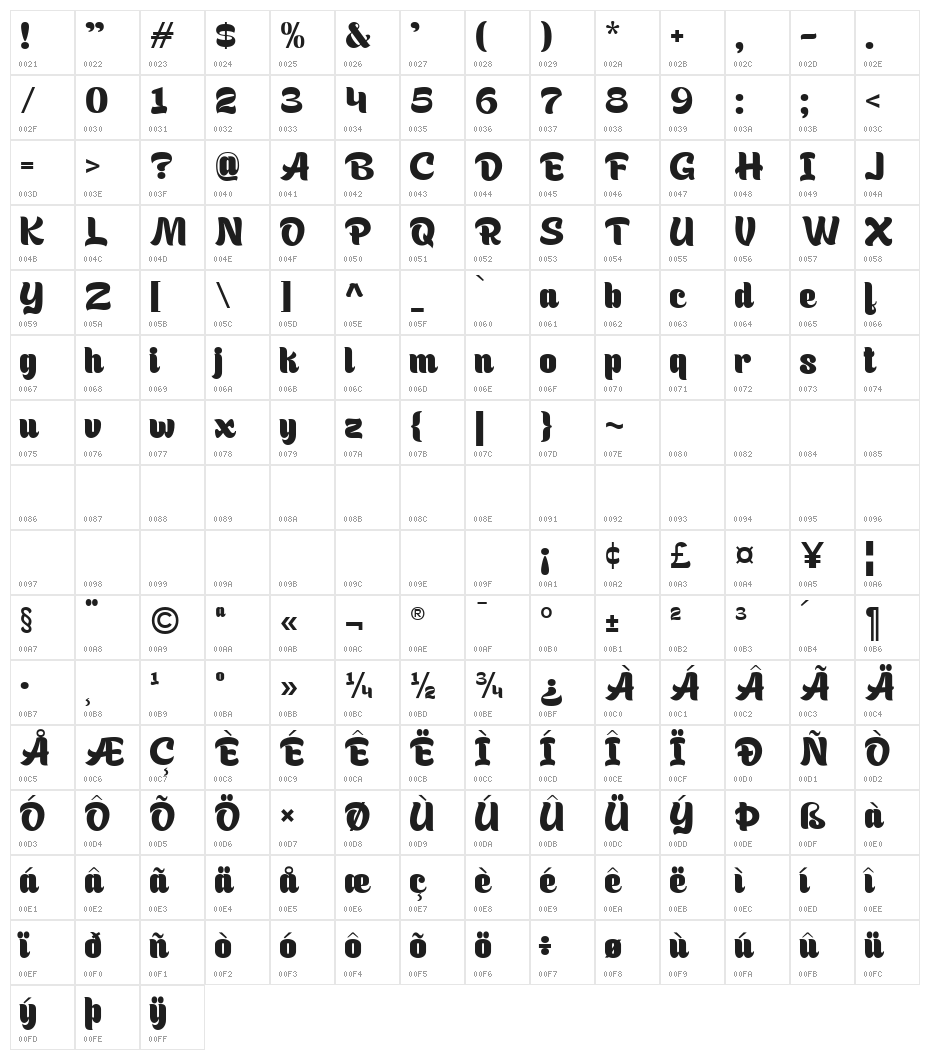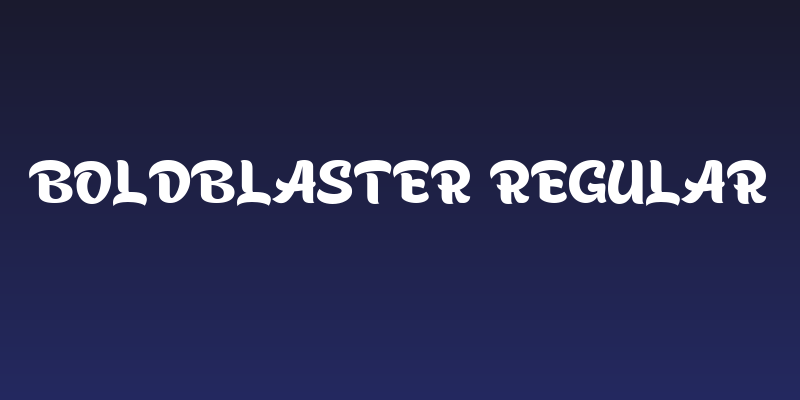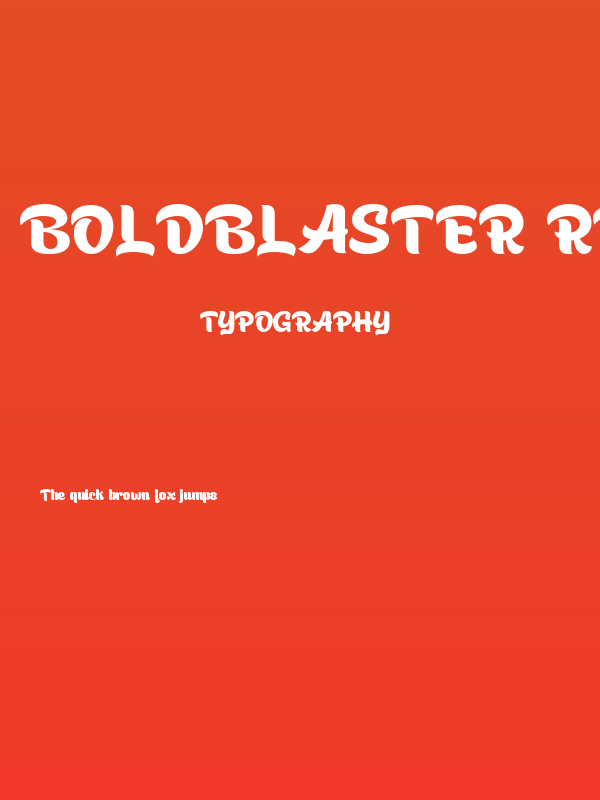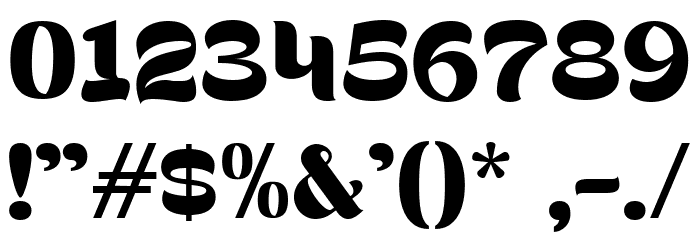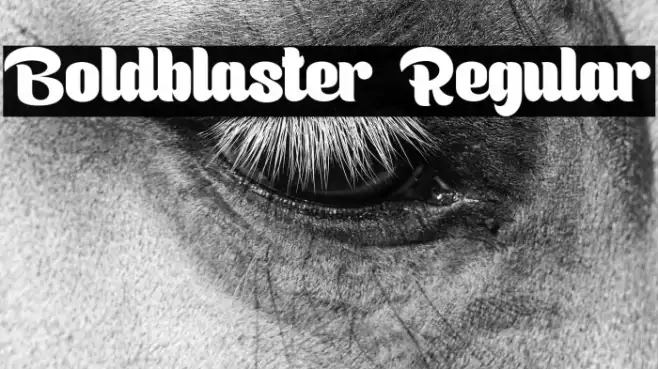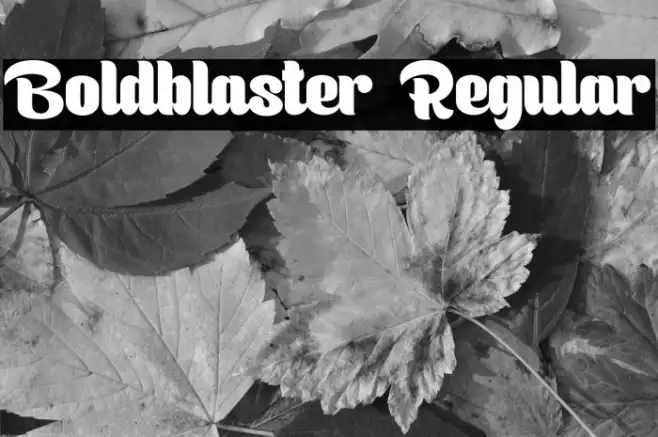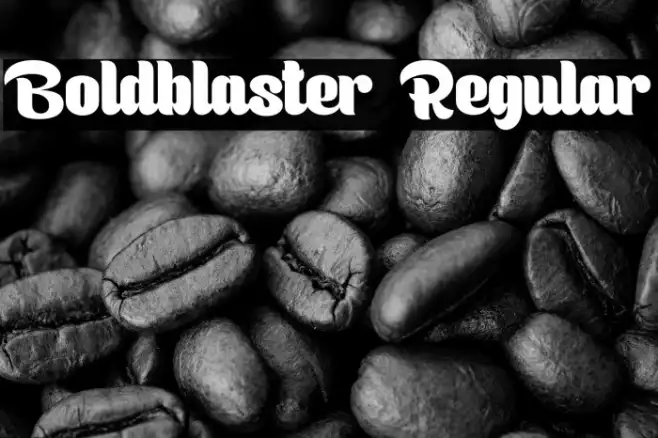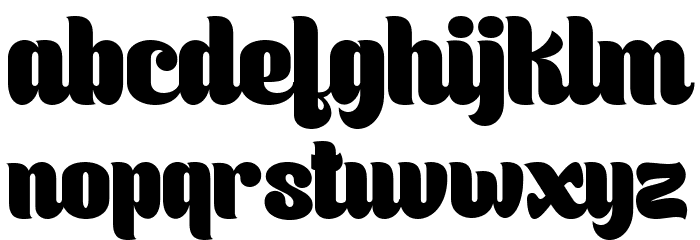
Boldblaster Regular Font
Boldblaster Regular Description
This font features a bold and dynamic style with thick, rounded strokes that convey a sense of strength and impact. The uppercase letters are particularly striking, with a slight curvature that adds a playful yet assertive character. The lowercase letters maintain this boldness, ensuring readability while adding a touch of uniqueness with their rounded forms. The numerals are equally robust, designed to stand out with their substantial weight. Special characters are crafted with the same attention to detail, ensuring consistency across all glyphs. This font's overall appearance is both modern and slightly retro, making it versatile for various design needs.